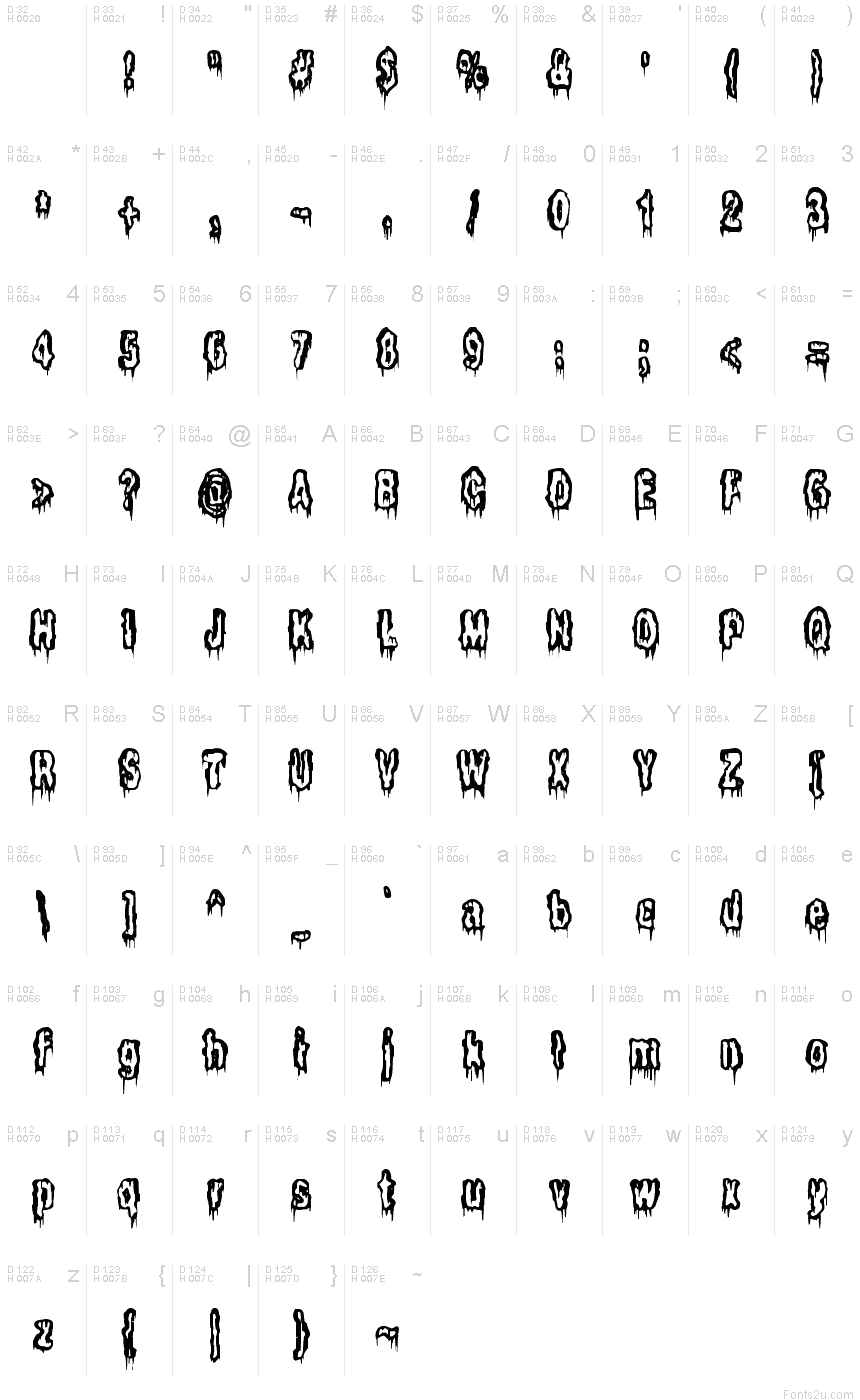
It Lives In The Swamp (BRK)
It Lives In The Swamp font by Ænigma Fonts is a free scary display typeface that oozes with drippy, ink-splattered character. Each letter looks like it’s clawed out of black mud-tall, warped shapes with gooey streaks trailing down, as if they’re still wet. The rough, irregular edges give your titles that unsettling, handmade horror-poster feel without needing any extra textures or effects.
Using It Lives In The Swamp, you can push haunted house flyers, Halloween event branding, creature-feature movie titles, game splash screens, spooky book covers, and eerie social posts into full-on nightmare territory. This free font works best huge and bold, where the dripping silhouettes can really stretch and creep. For supporting text, pair it with a clean, narrow sans serif so the chaos stays in the headlines while the details stay readable.